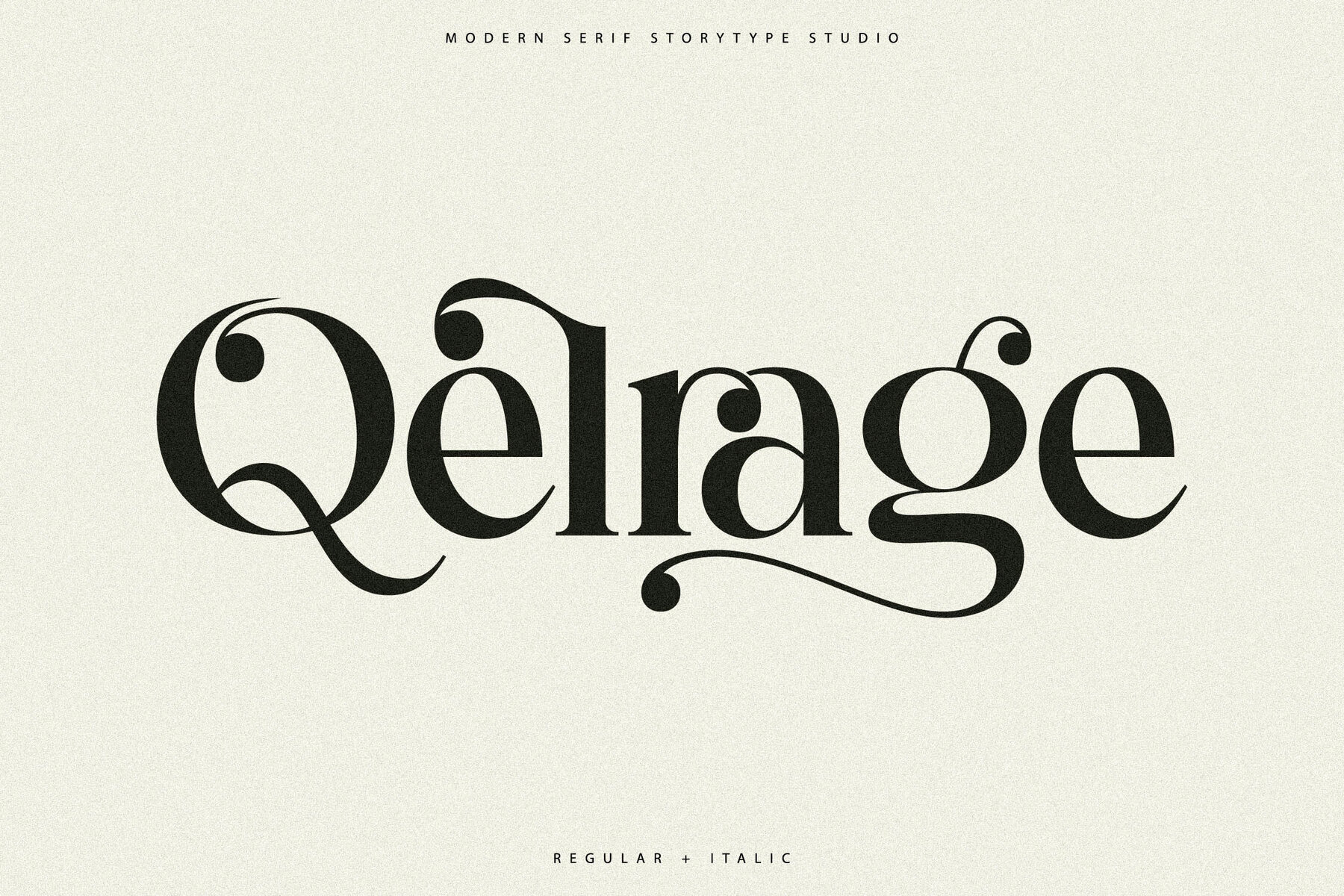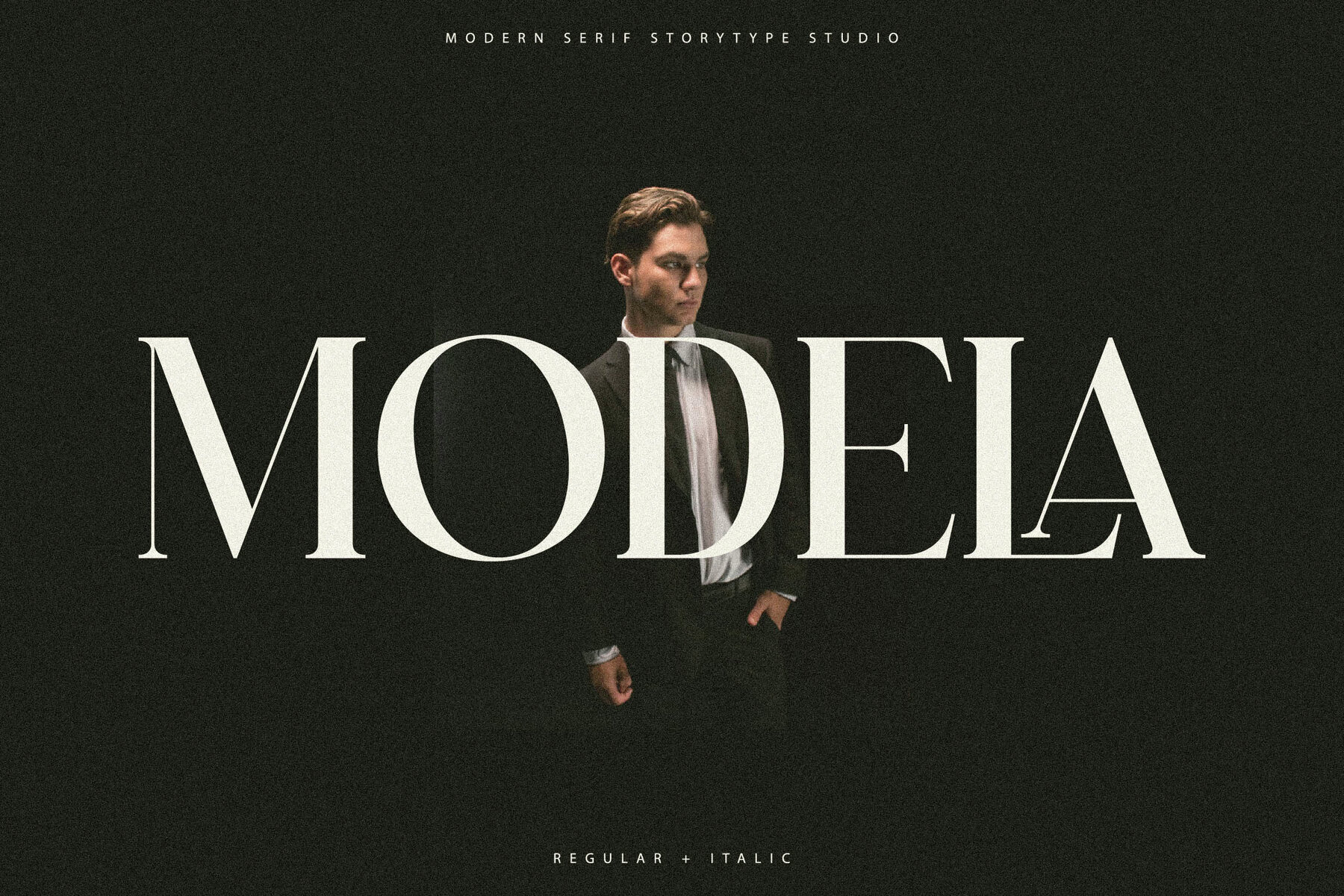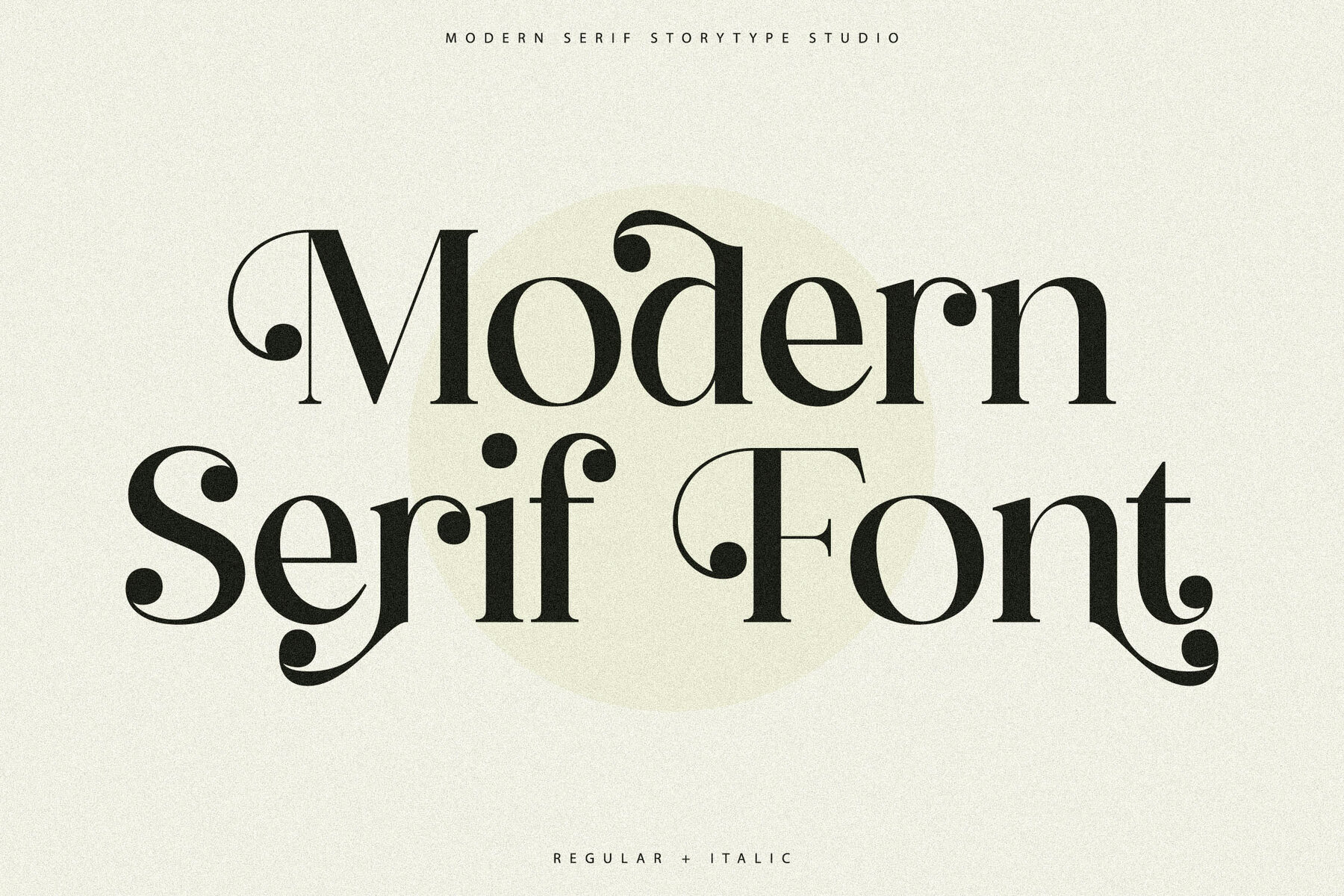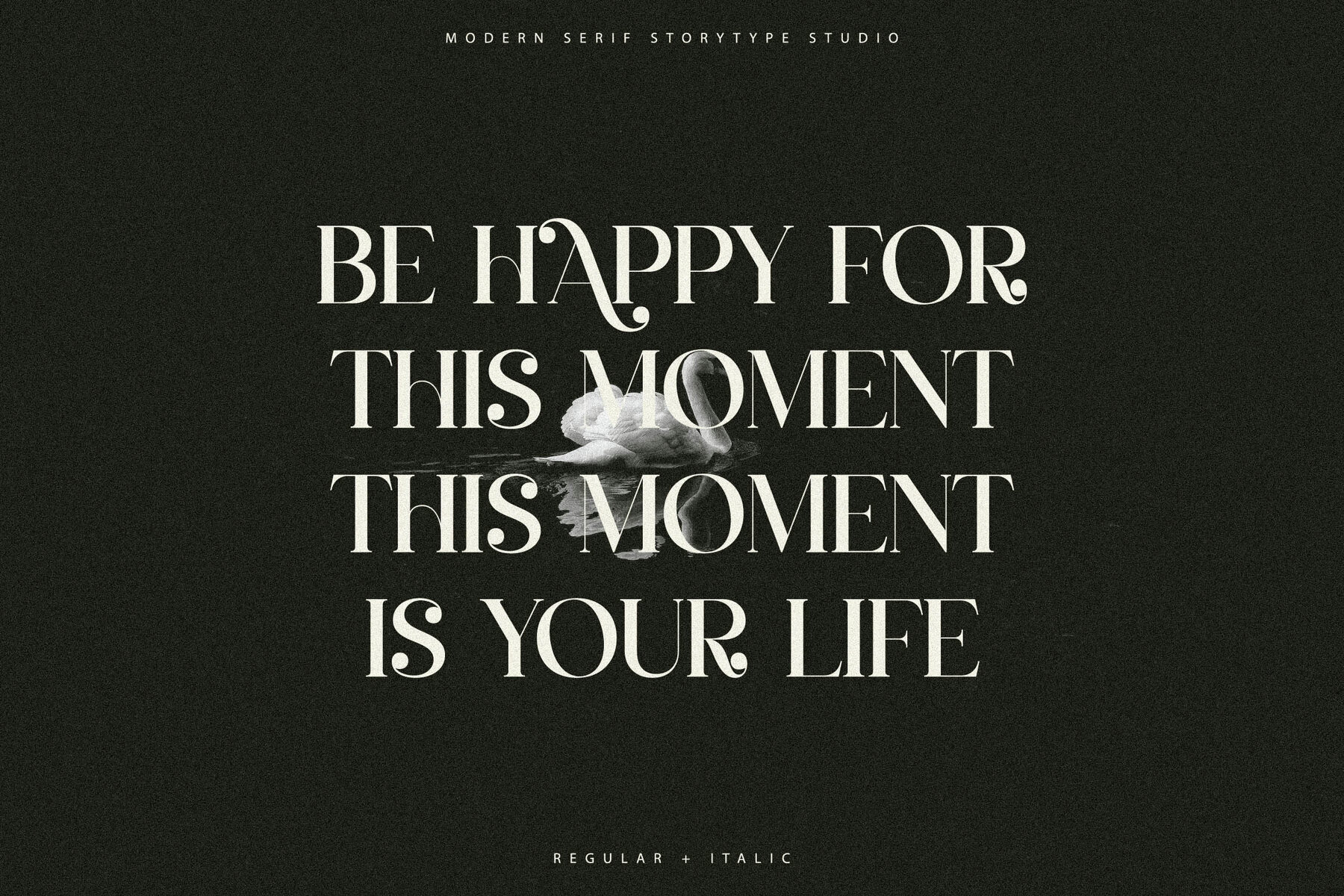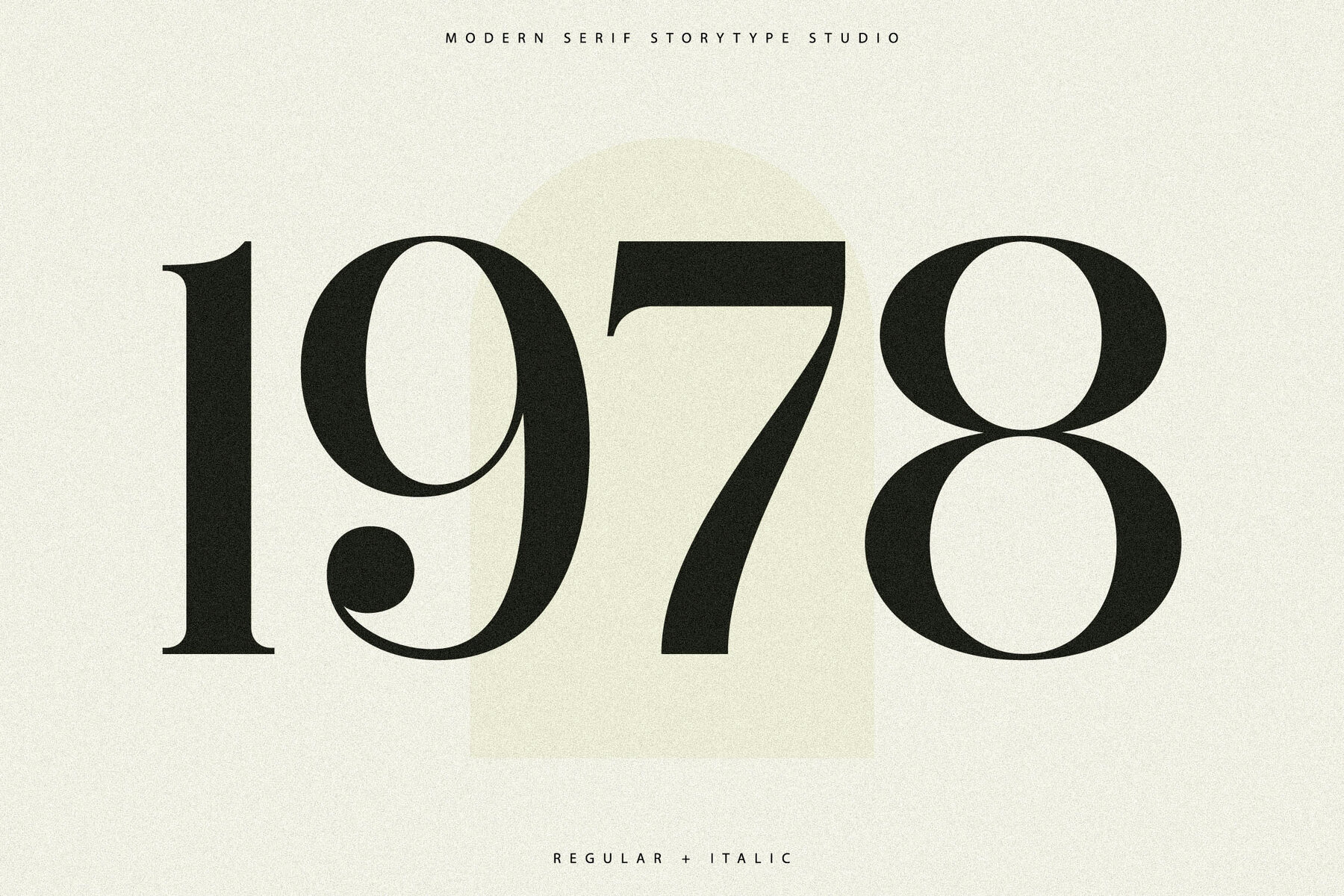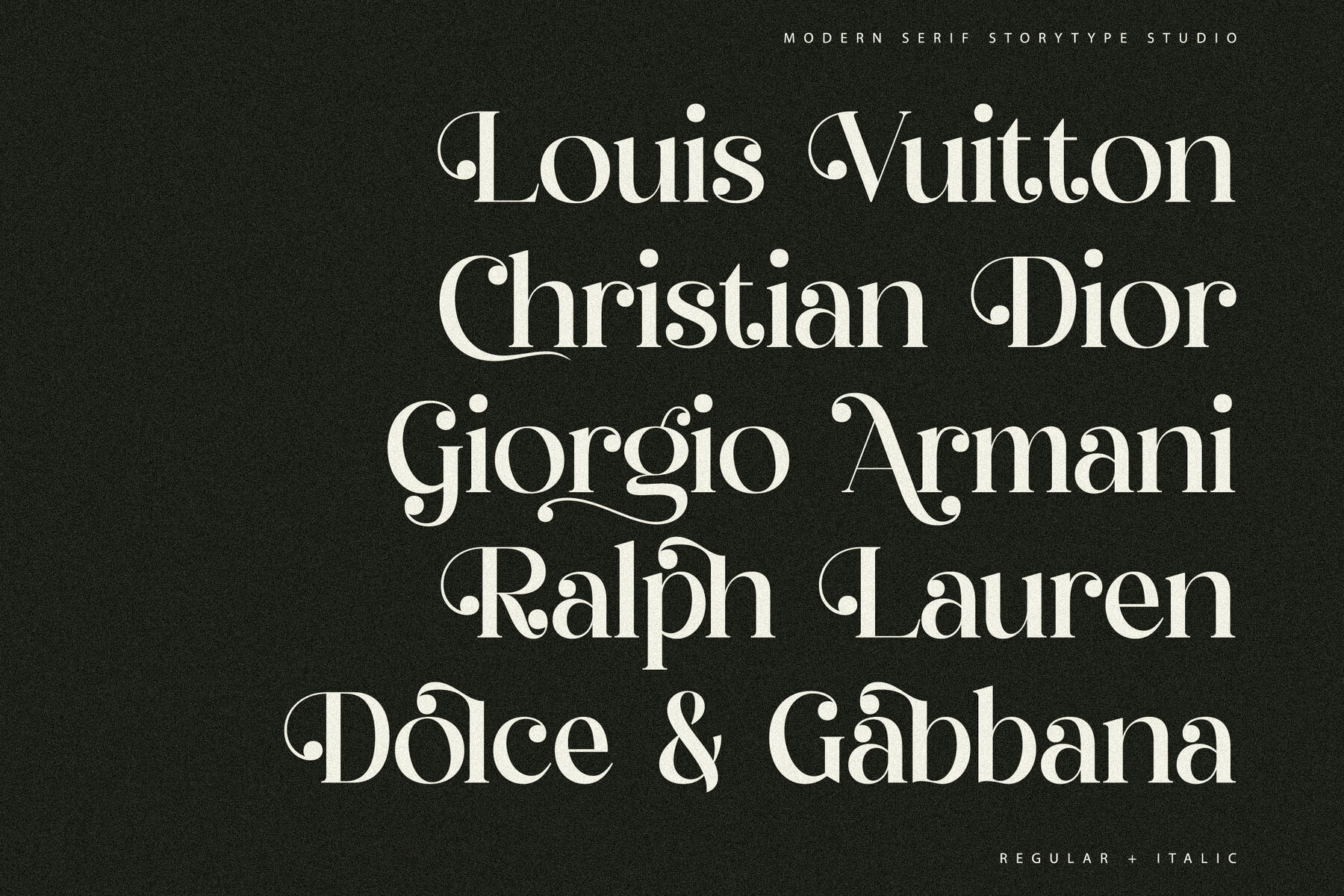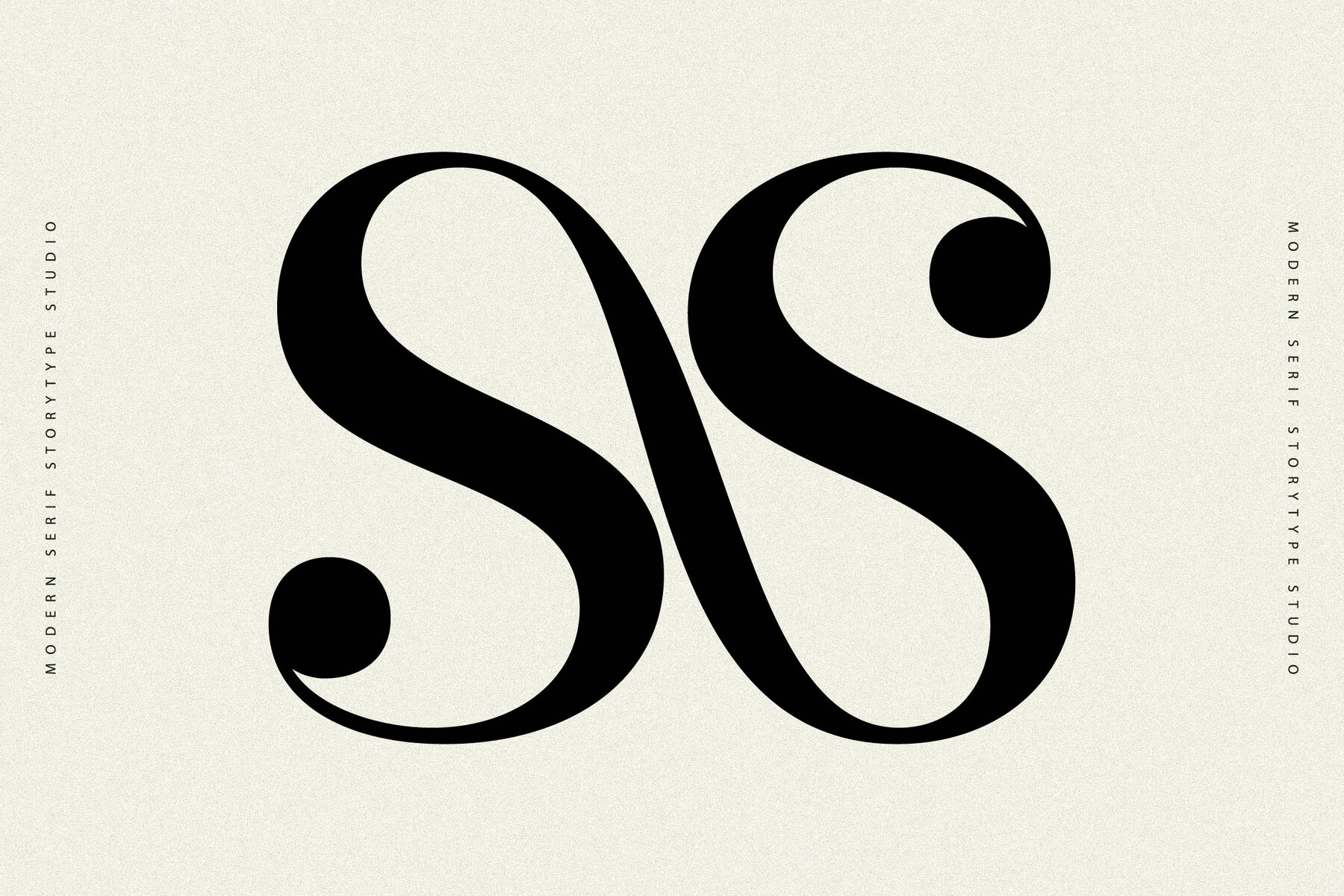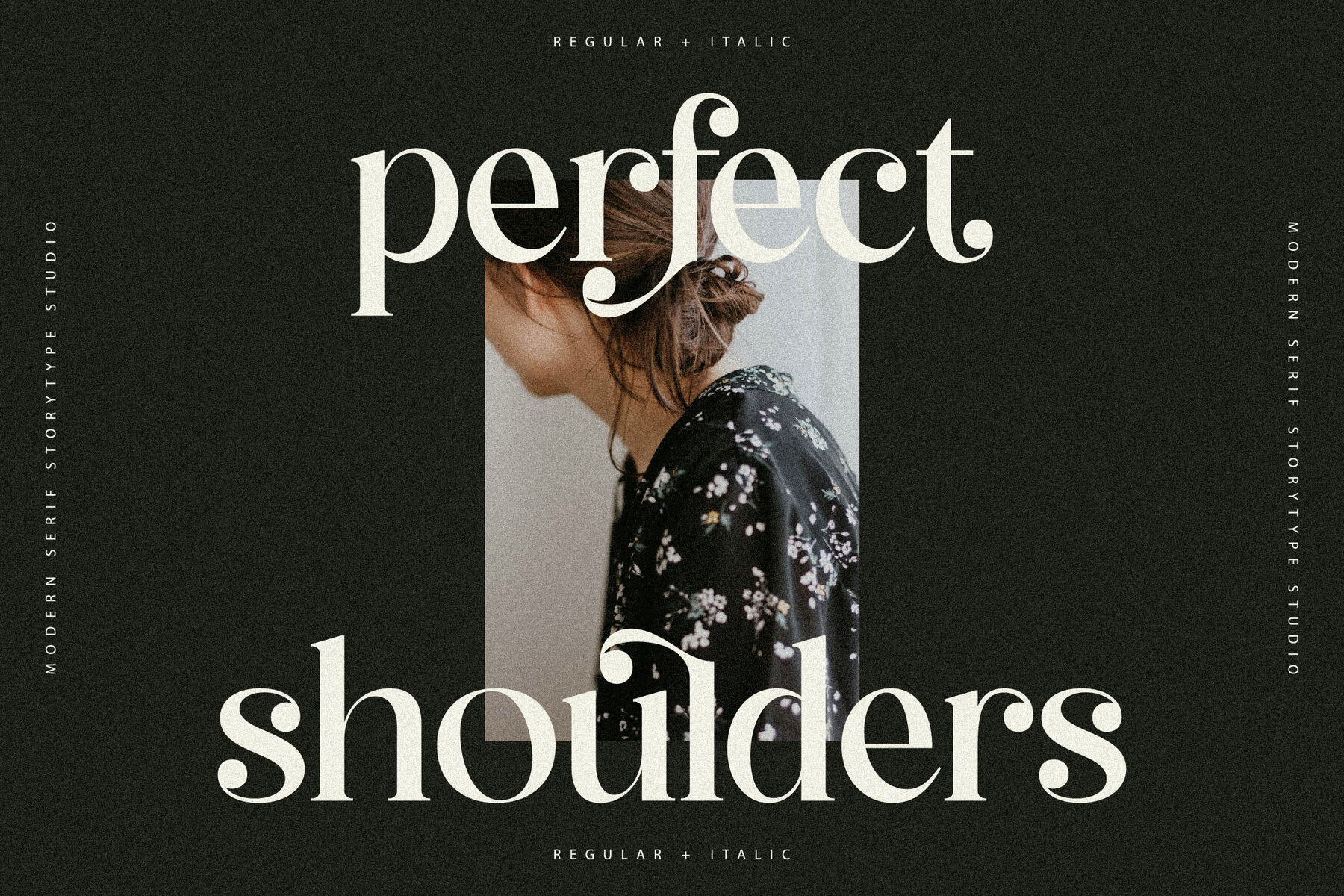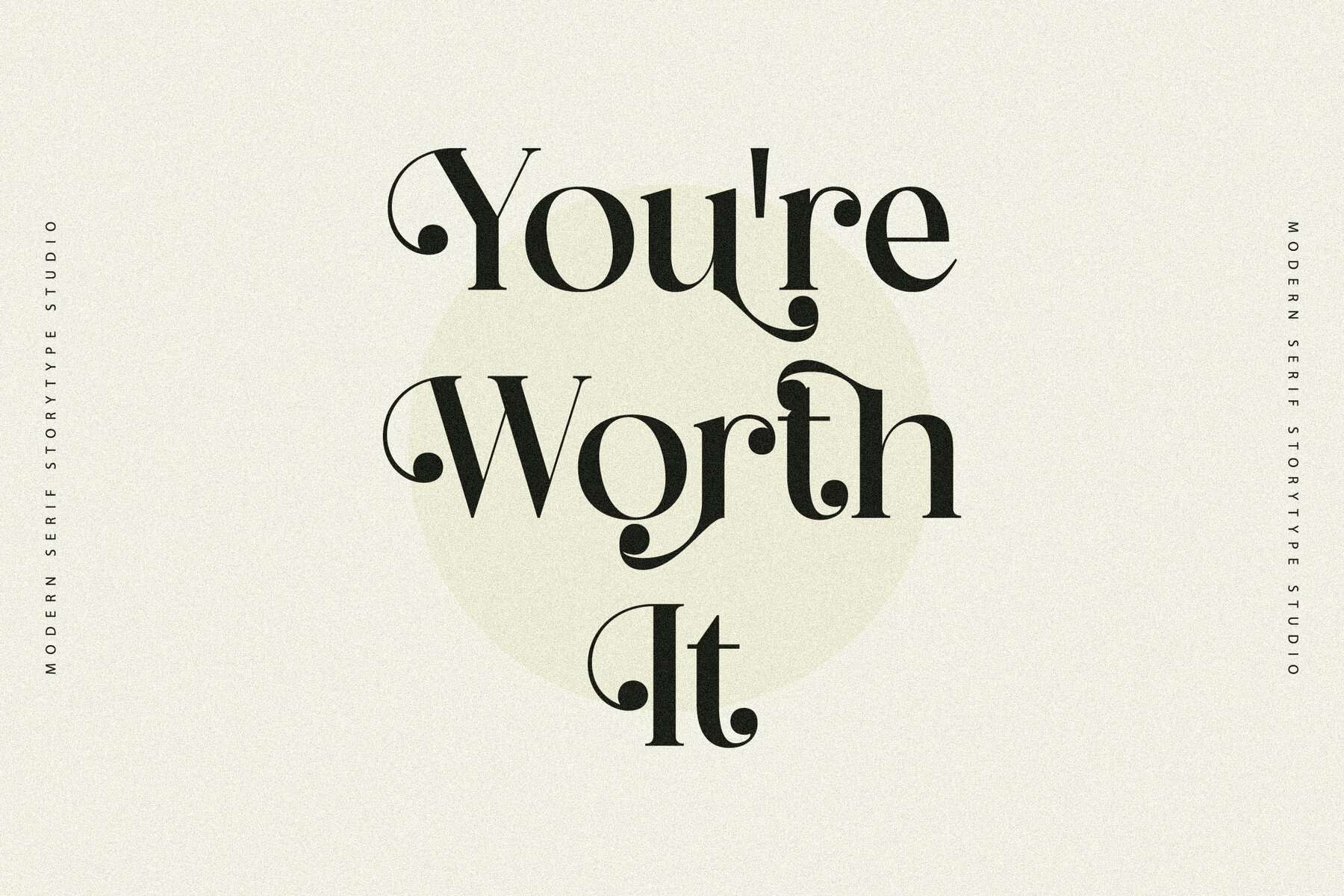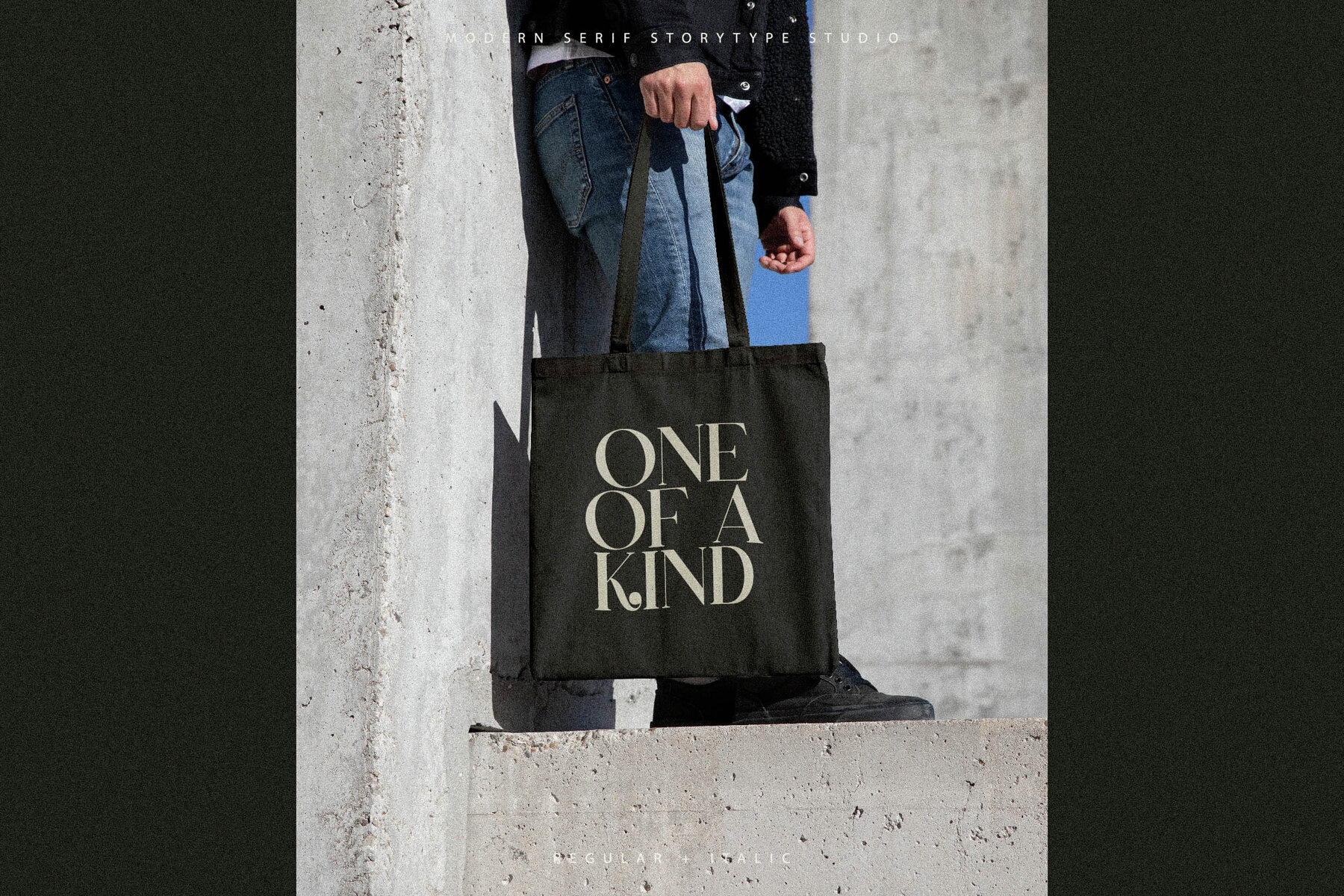
Qelrage Font
Embrace sophistication with Qelrage Typeface, a modern yet classic serif font by Storytype Studio. Its unique style exudes elegance, making it perfect for designing luxury logos, book and movie titles, fashion brand identities, magazines, clothing lines, and inspirational quotes.Introducing Qelrage Typeface
Features of Qelrage